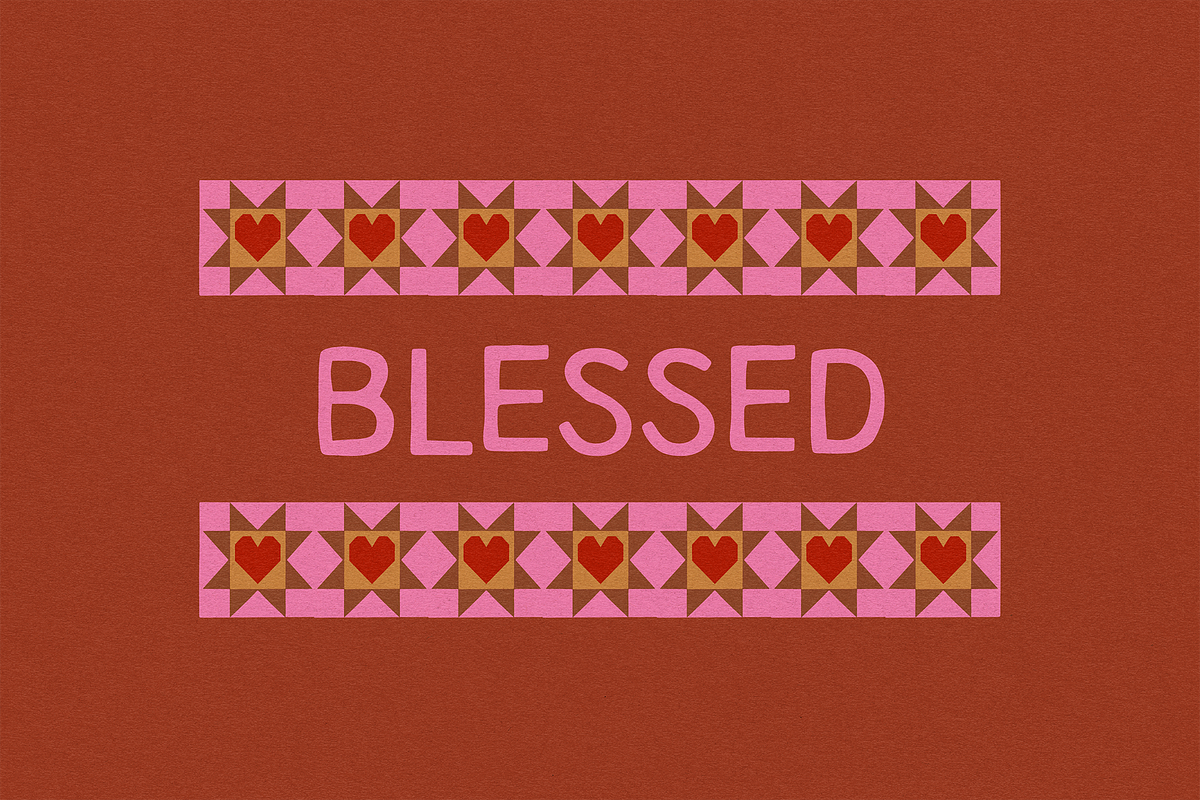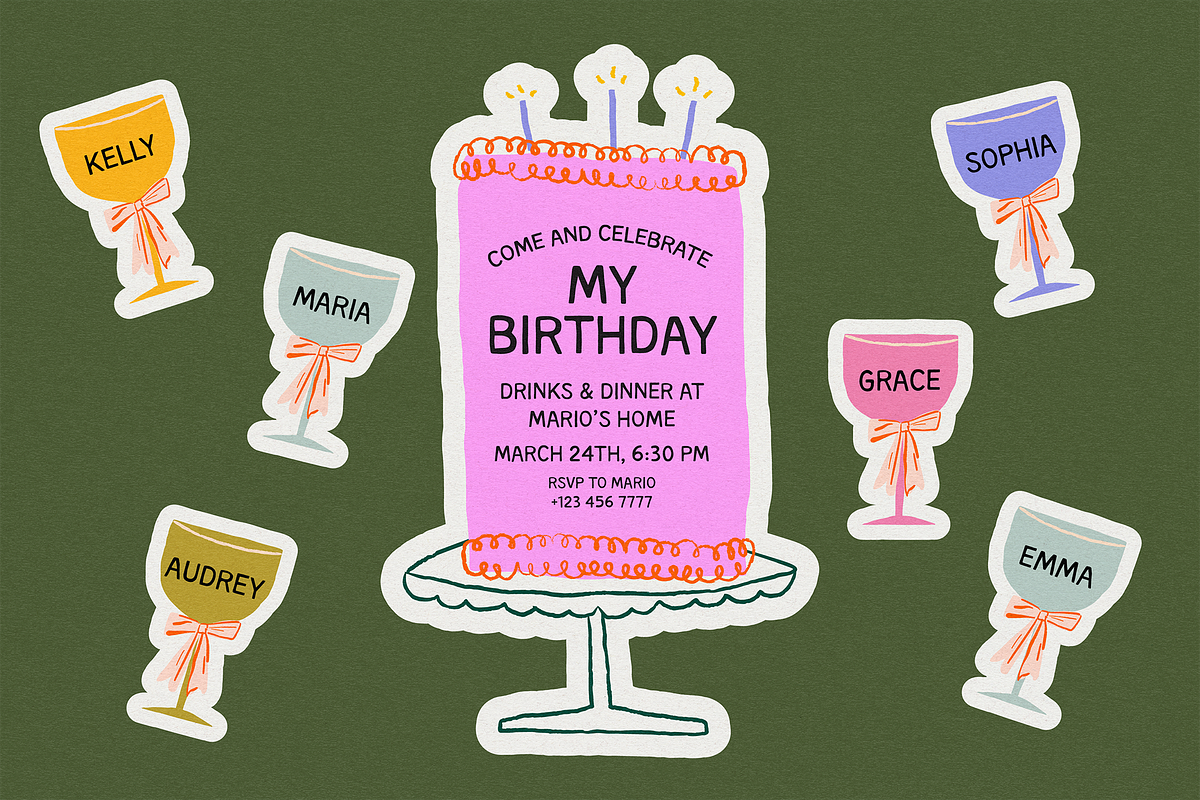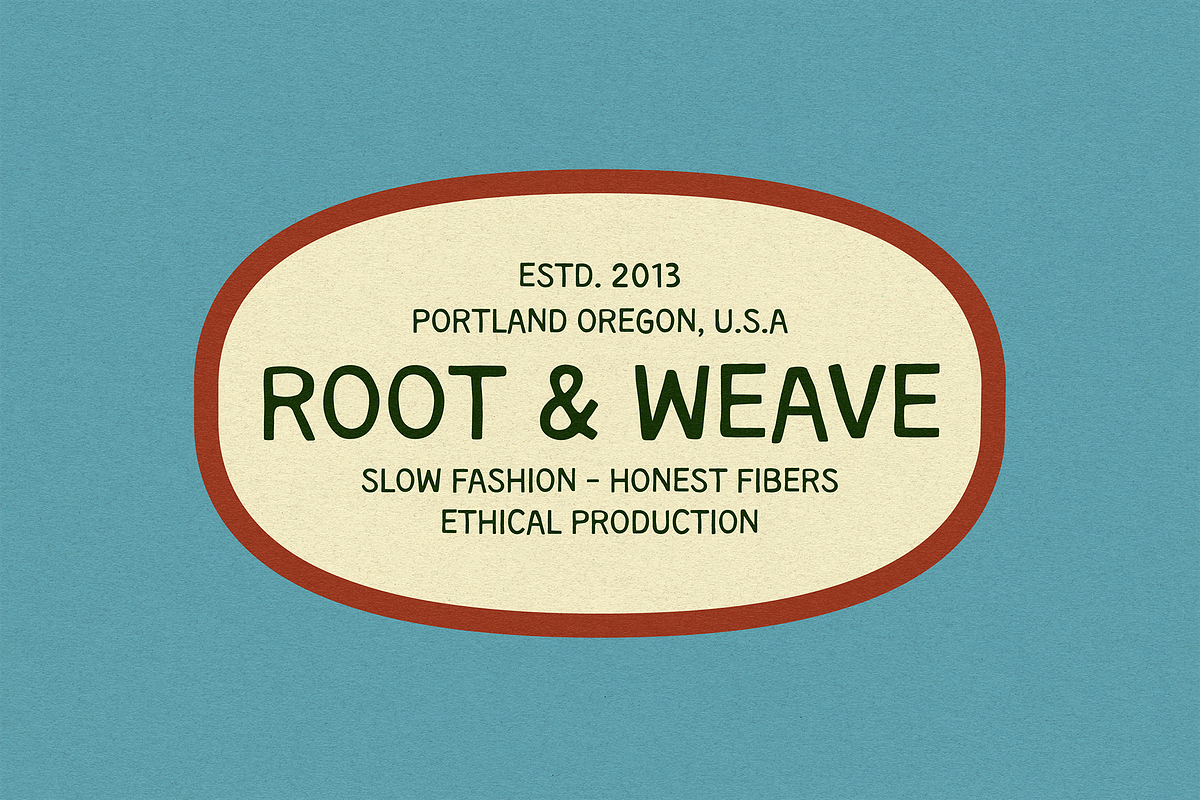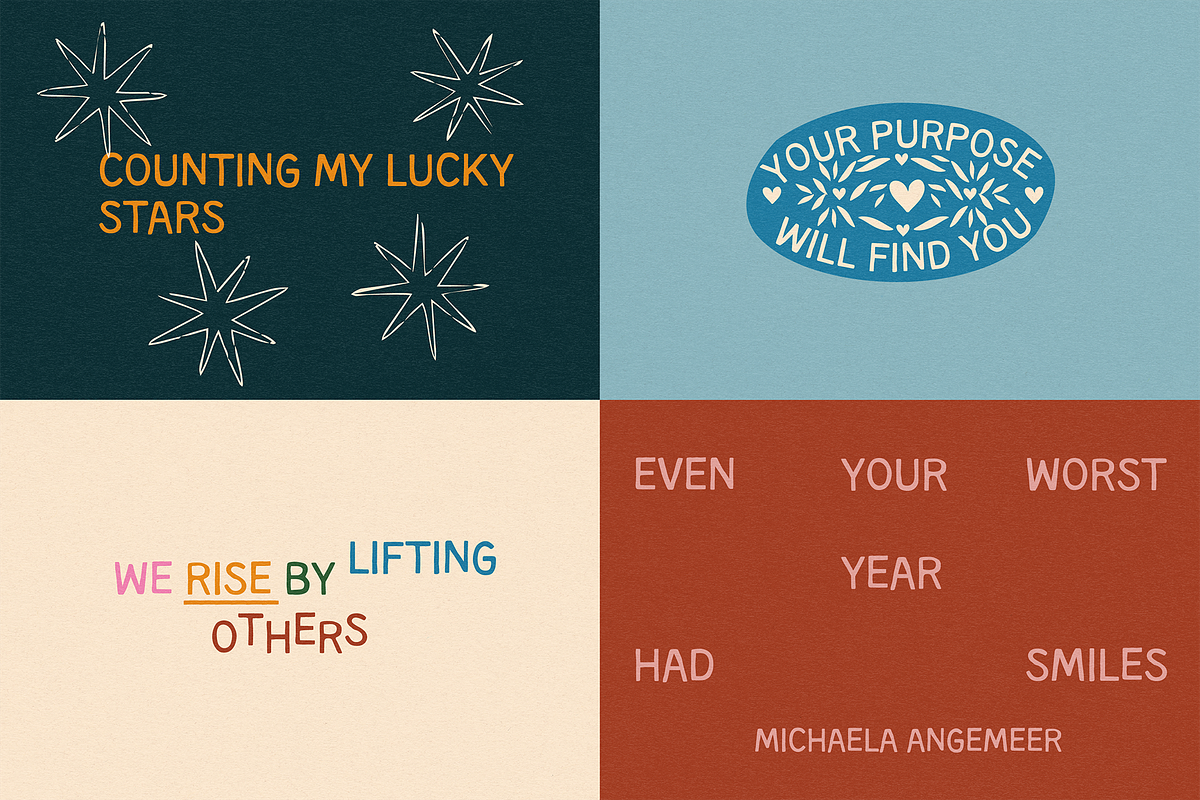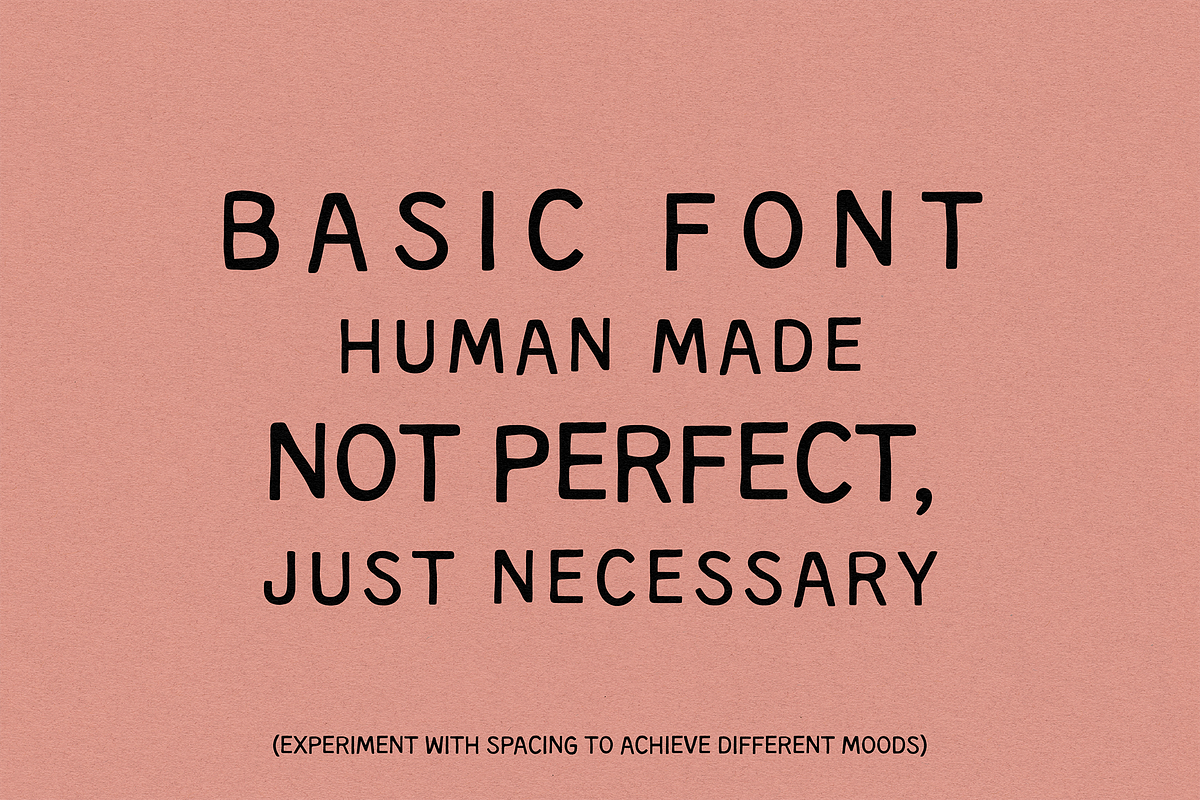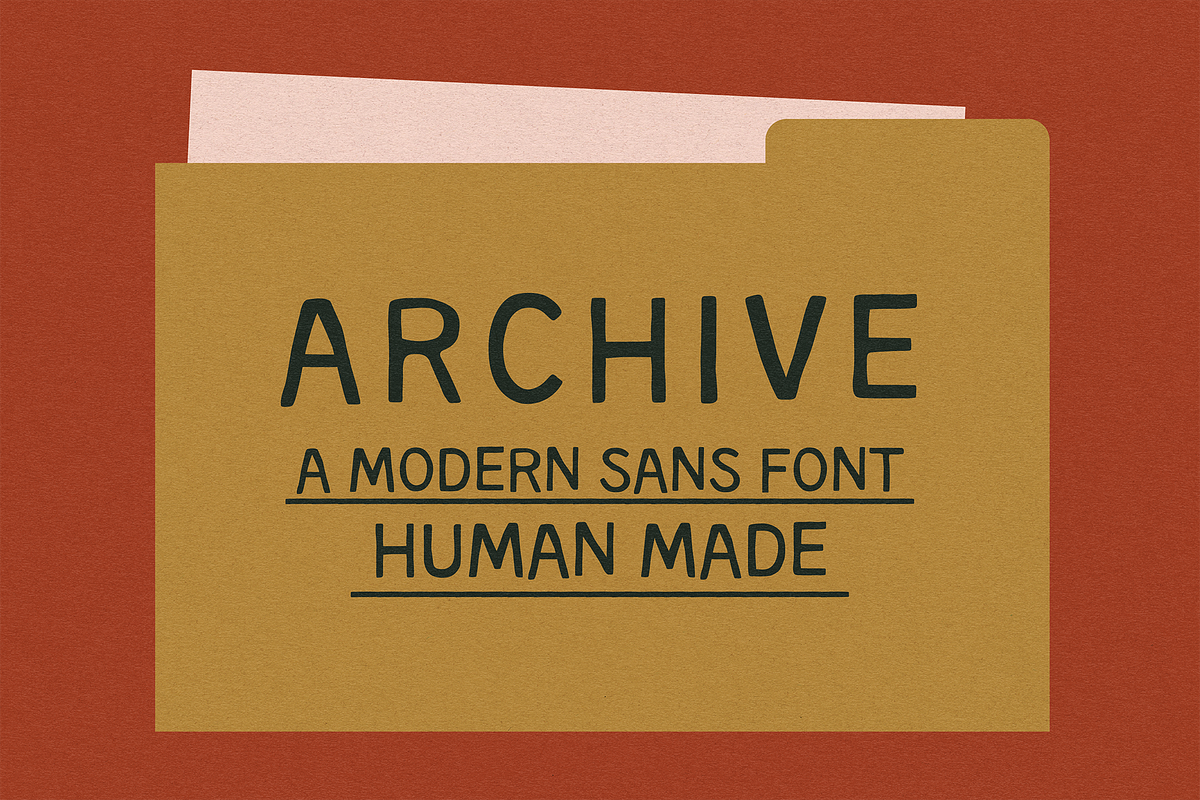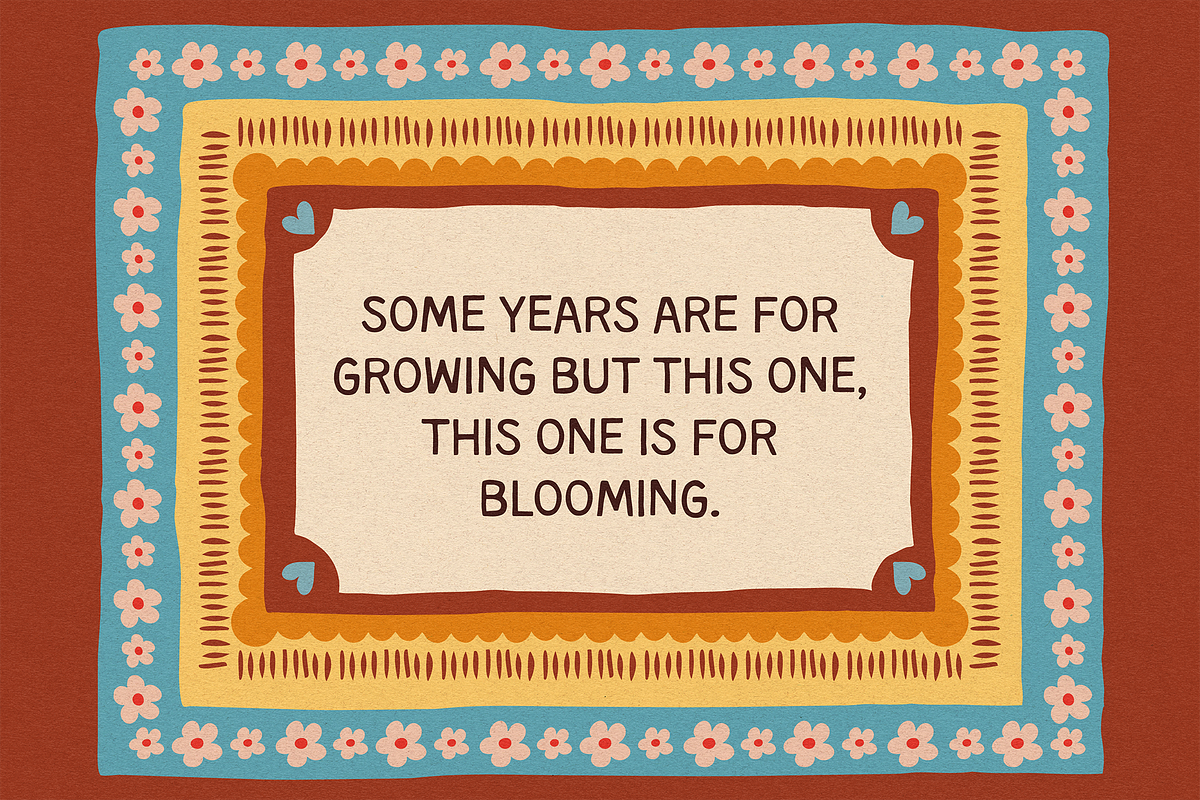
ARCHIVE | HAND DRAWN SANS FONT
ARCHIVE is a hand-drawn sans serif font that blends simplicity, organic charm, and cool imperfections. Its irregular strokes give it a natural human-made feel without looking messy or exaggerated.
ARCHIVE is a must basic font thanks to its versatility and personality. It works beautifully as a secondary typeface and was originally created for that exact purpose, to complement expressive designs without overpowering them.
Inspired by one of my favorite basic fonts, The Golden Thread, ARCHIVE features a slightly less rounded structure and a softer, more delicate look, giving your designs balance, warmth, and authenticity.